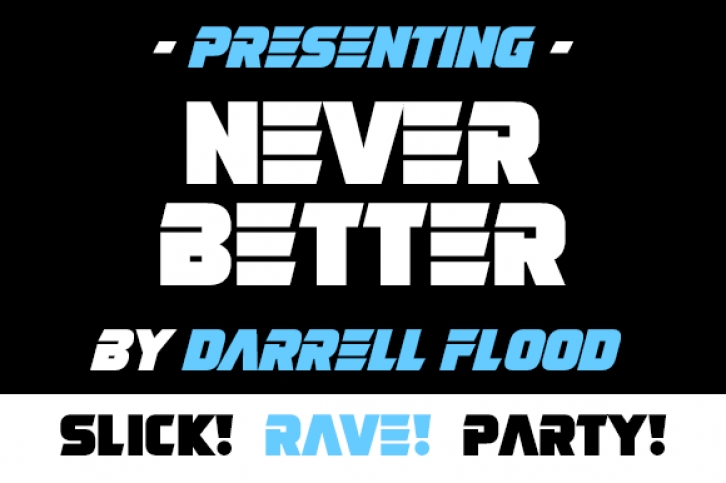
Never Better is a bold, modern display font with a cool futuristic style. Perfect for tech and science themes or just adding extra visual impact to your creations!